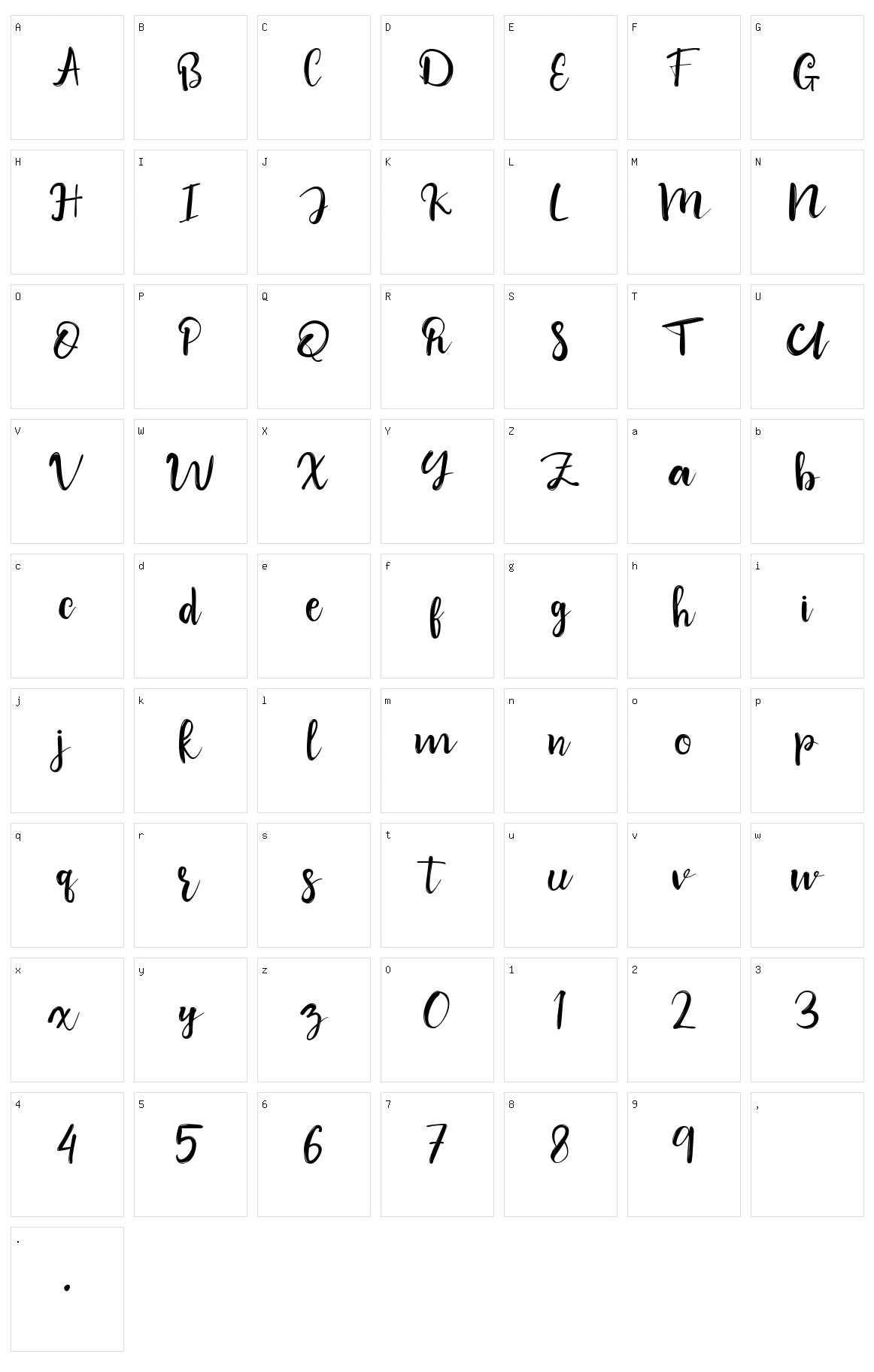
The free font Wildest Dream is carefully designed by DDLab, showcasing a thoughtful balance of creativity and usability and falls under the Script font style. When you download the ZIP file, it contains only 29.24 KB of font files, making it lightweight and quick to download. Please review the license details below to understand permitted usage and distribution rights. If license information is not available, we recommend using this font for personal projects only or contacting the author directly for commercial usage permissions.